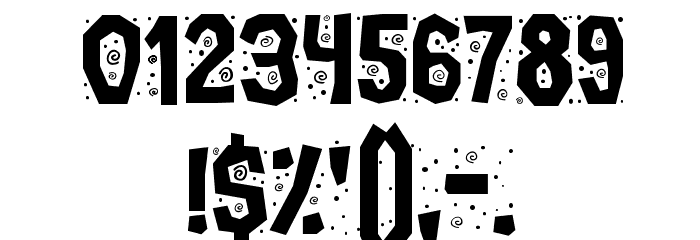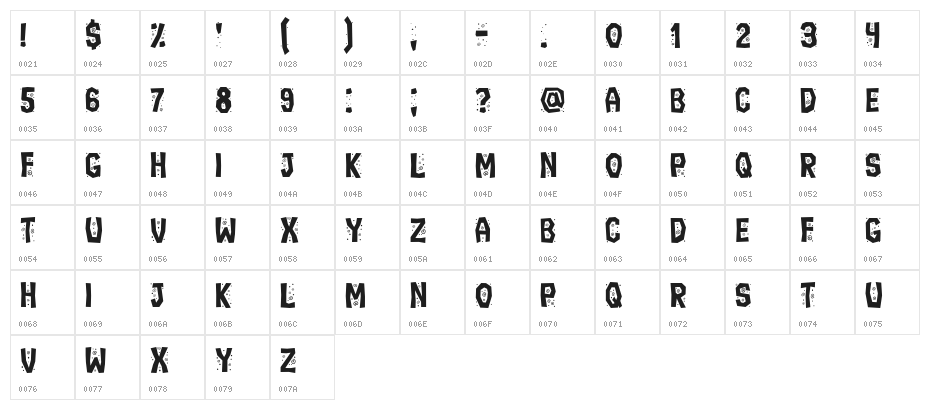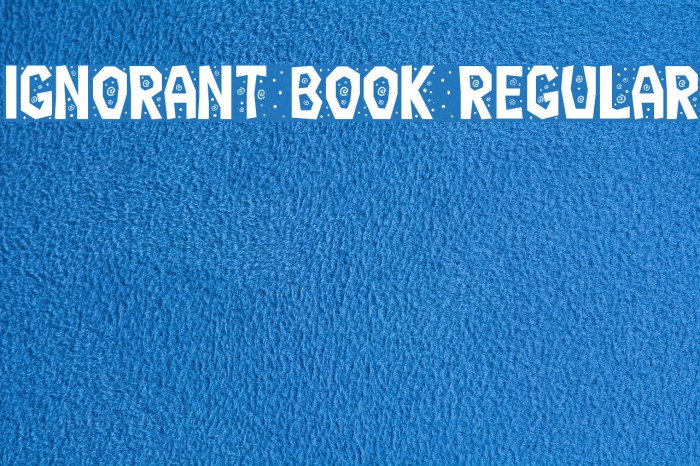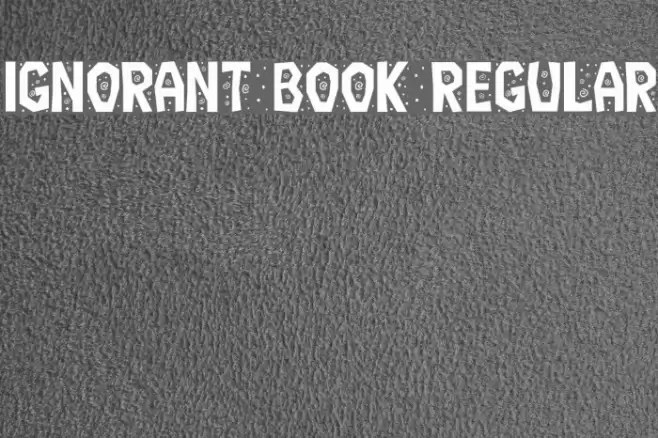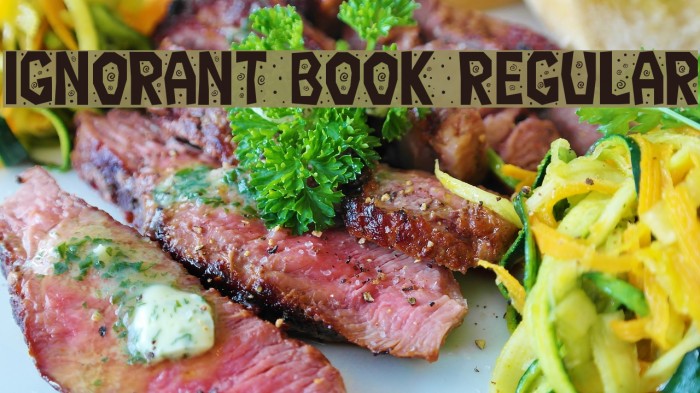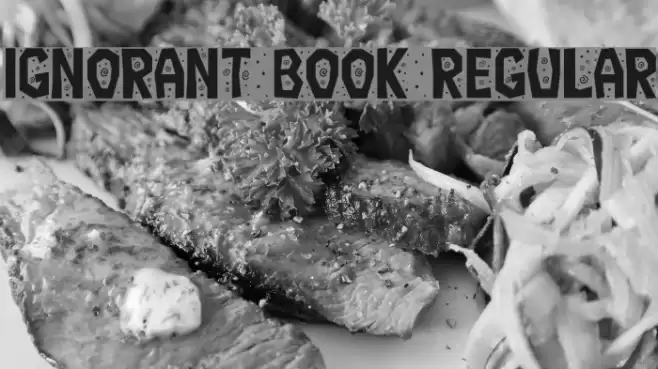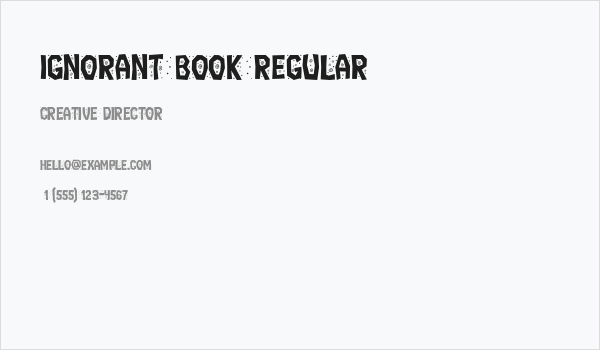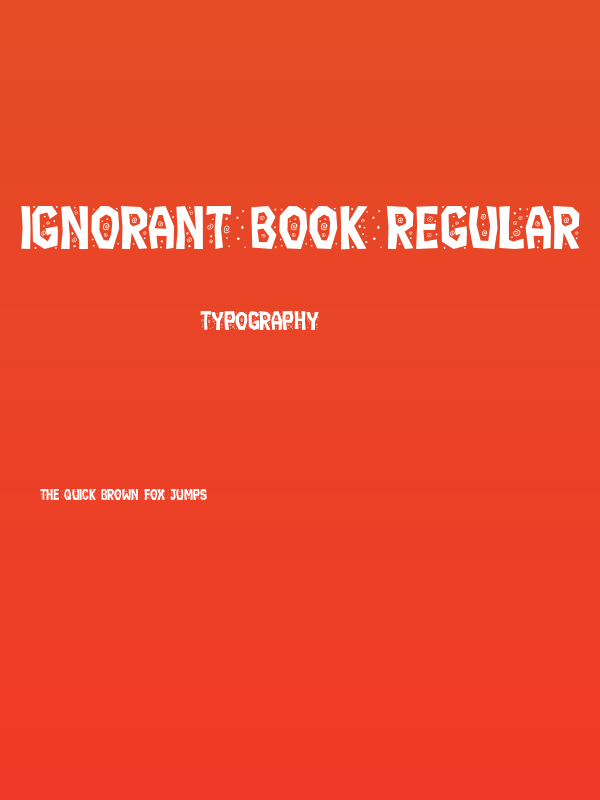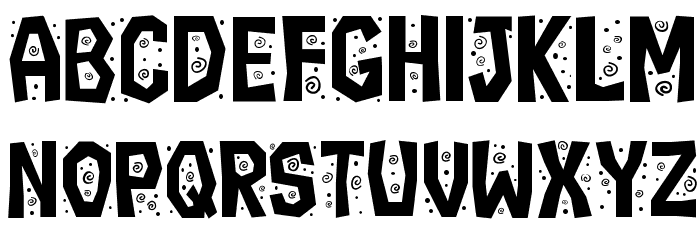
Ignorant Book Regular Font
Ignorant Book Regular Description
This font exhibits a playful and whimsical style, characterized by its bold and irregular letterforms. Each character is adorned with unique decorative elements, such as swirls and dots, adding a sense of fun and creativity. The font's design is highly distinctive, making it ideal for projects that require a touch of eccentricity and flair. Its bold weight and decorative style make it stand out, while the irregular shapes of the letters contribute to its quirky and informal appearance. The font is suitable for creative and artistic applications, where a lively and unconventional look is desired.
| Proposed Projects | Ideal for children's books, playful posters, party invitations, and creative branding. |